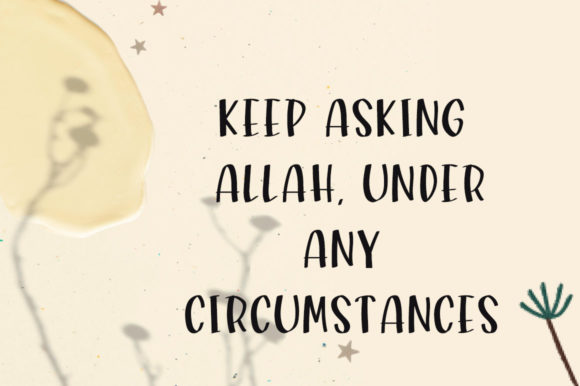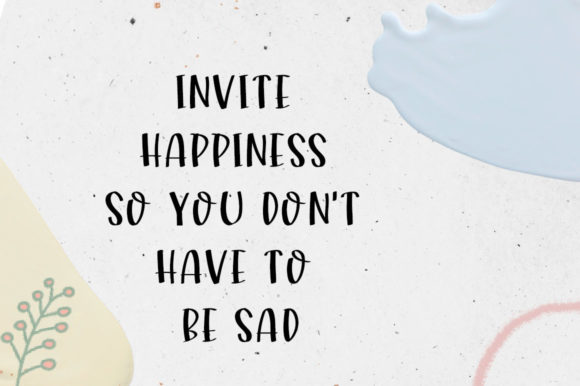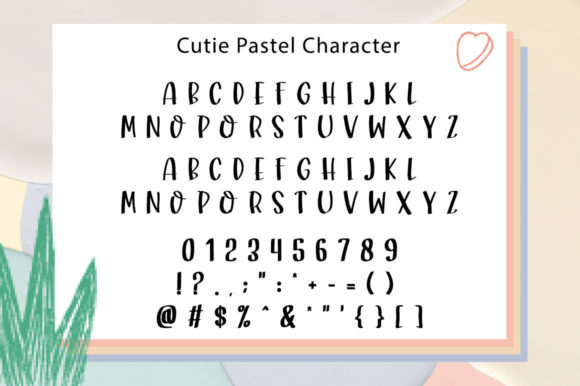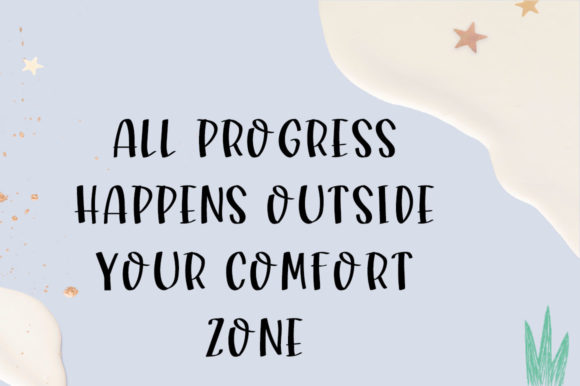
About Cutie Pastel Font
**Cutie Pastel** steps into the spotlight as a cute and casual handwritten font, destined to make a statement in any context. Whether you’re on the hunt for fonts to enhance your Instagram aesthetic or seeking calligraphy scripts for DIY projects, Cutie Pastel emerges as the font that transforms every creative idea into a true piece of art.
The cuteness and casual charm of Cutie Pastel make it a standout choice for a variety of applications. From logos and headings to t-shirts, letterhead, signage, labels, news, posters, badges, and more, this font seamlessly integrates into diverse design contexts. Its ability to adapt to different applications makes it a versatile and reliable option for a range of creative endeavors.
For Instagram posts and social media content, Cutie Pastel adds a playful and charming touch. Its handwritten style contributes to a relaxed and friendly atmosphere, making it perfect for visuals that require a personalized and approachable feel. The font becomes an essential element in turning your Instagram feed into a visually captivating showcase.
In DIY projects, Cutie Pastel becomes a valuable asset, enhancing the handmade and artisanal quality of your creations. Whether applied to labels, signage, or posters, the font’s cute and casual handwritten aesthetic adds character and uniqueness to each design. It transforms every creative idea into a true piece of art, showcasing creativity and individuality.
The broad range of applications, from logos to t-shirts and beyond, demonstrates Cutie Pastel’s versatility. Its adaptability ensures that it remains a standout choice for a variety of design projects, providing a consistent and engaging visual presence.
In essence, Cutie Pastel goes beyond being just a font; it becomes a design companion that effortlessly combines cuteness with casual charm. Embrace the playful and versatile qualities that Cutie Pastel brings to your creative ideas, turning each project into a true piece of art that captivates and delights.